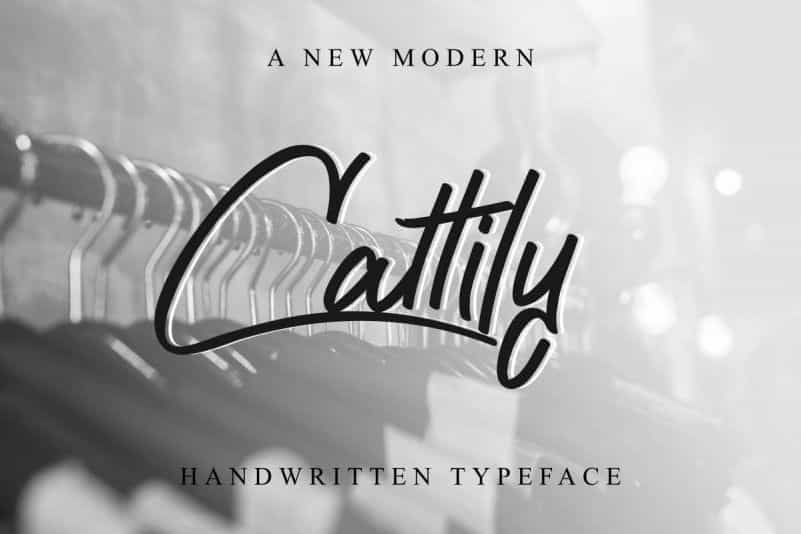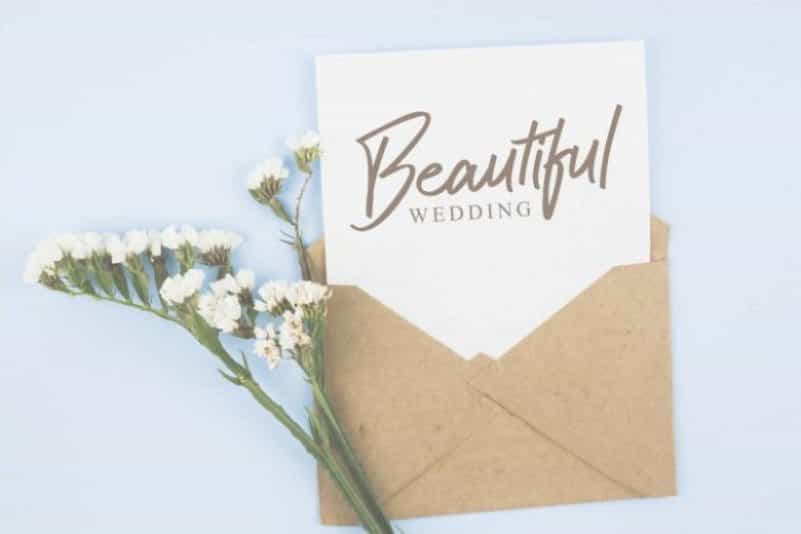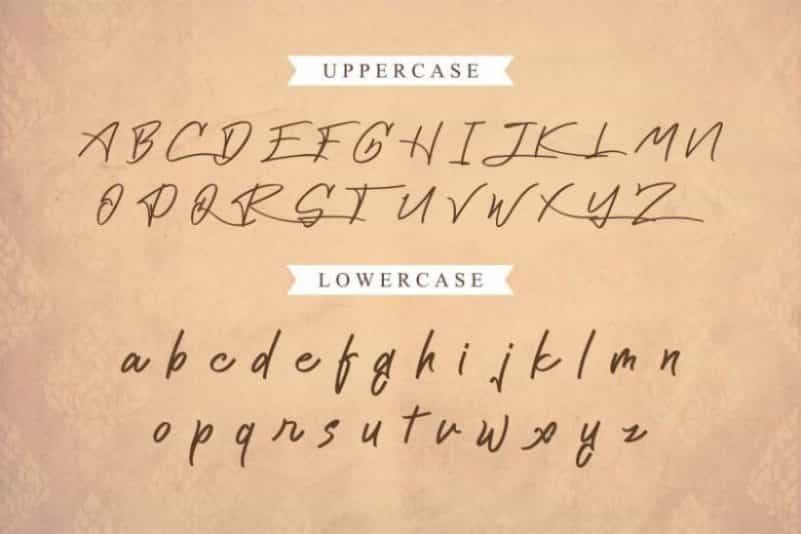
Cattily is a link script calligraphy font! Cattily is an elegant calligraphy script that offers a brand new modern style brushed lettering. It will be awesome for many industries and projects : Wedding, professional, person’s name, signature, modern, law firm, makeup artist, photography, travel, hotel, fashion, café, cake/food etc. Flyer, banner, promotion, brochure, logotype (need extended license), social media, quote etc.